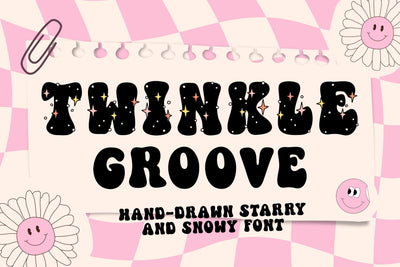
Twinkle Groove - Hand Drawn Starry and Snowy Font
Twinkle Groove is a fun retro groovy hand drawn font with sparkles and snow decorations. You can use this font in various projects - blog posts, logos, branding, digital planner, digital notes, invitations, greeting cards, planners, digital journal, photo albums, study notes, school notes, college notes, decorations and much more. Its authentic look and feel will add a personal and realistic feel to your designs.
The font includes uppercase, numbers, punctuations